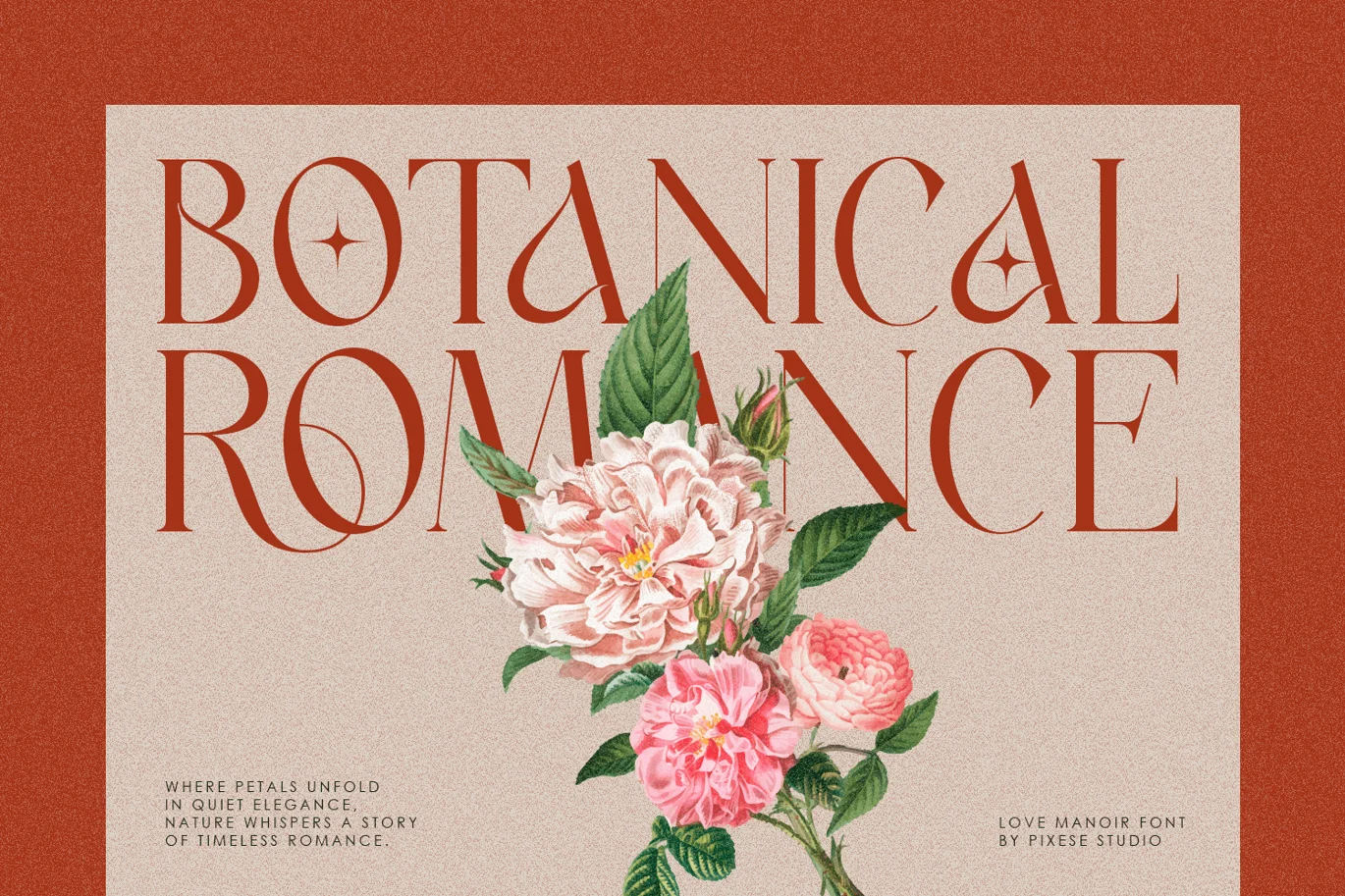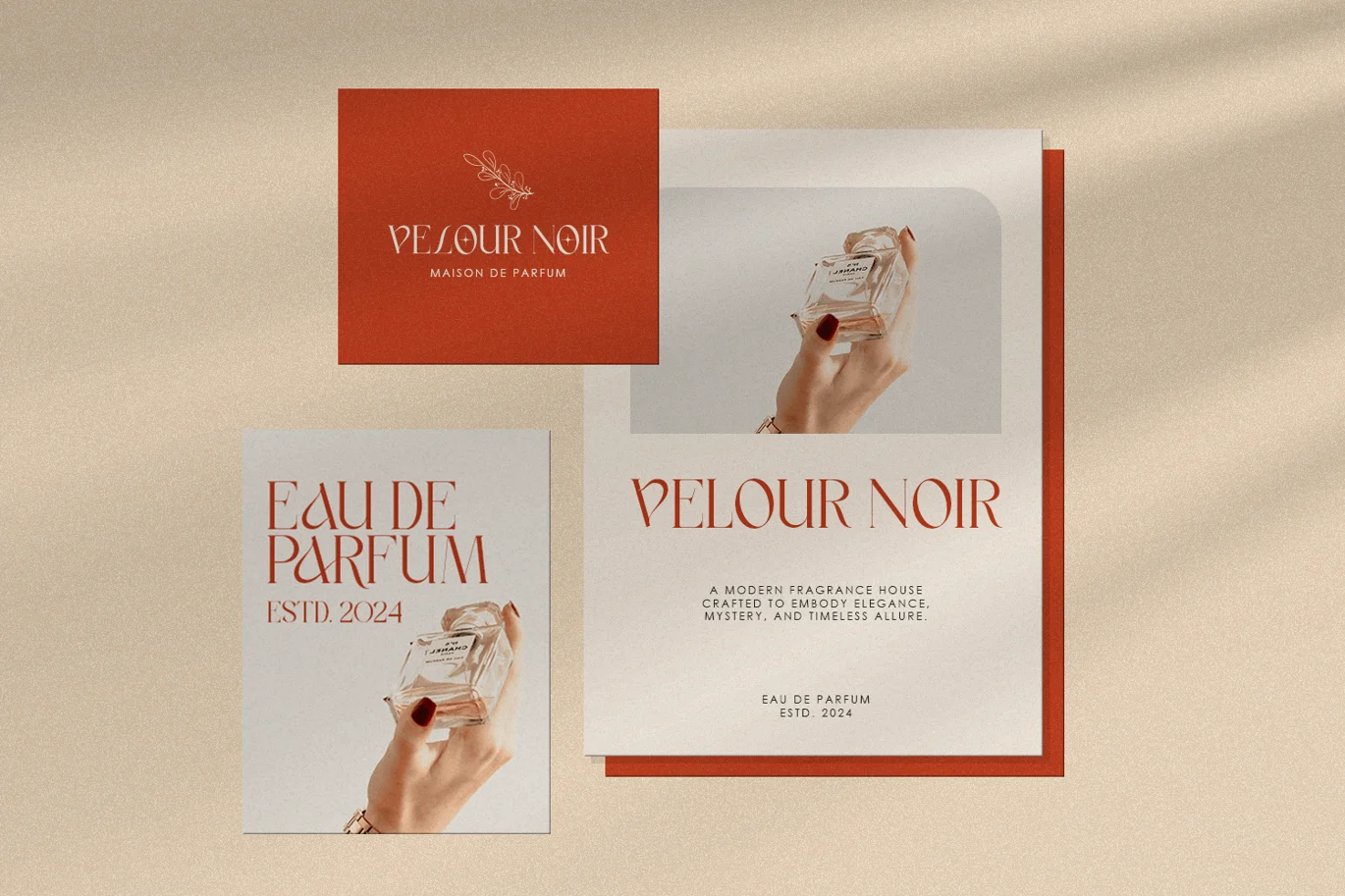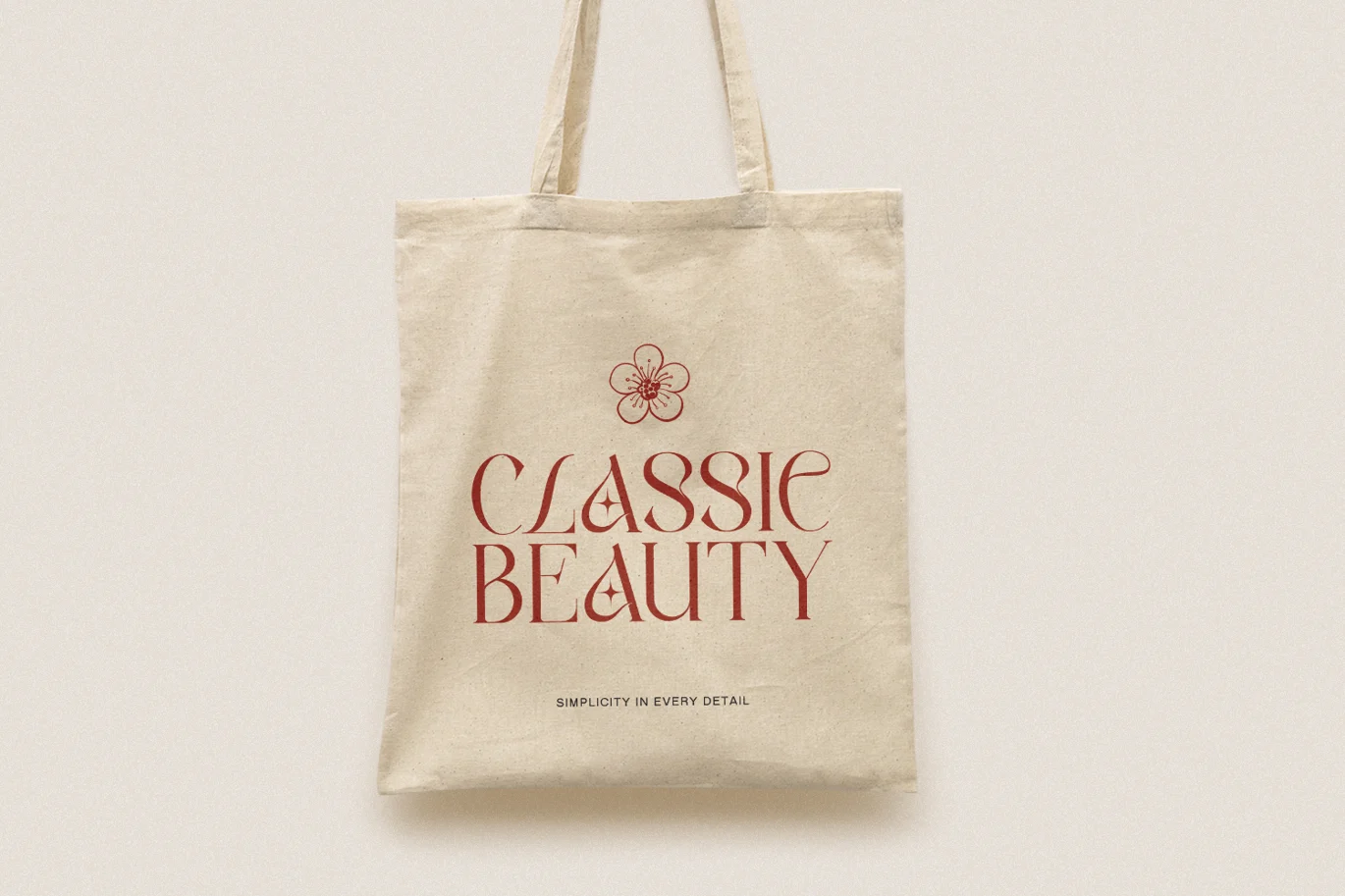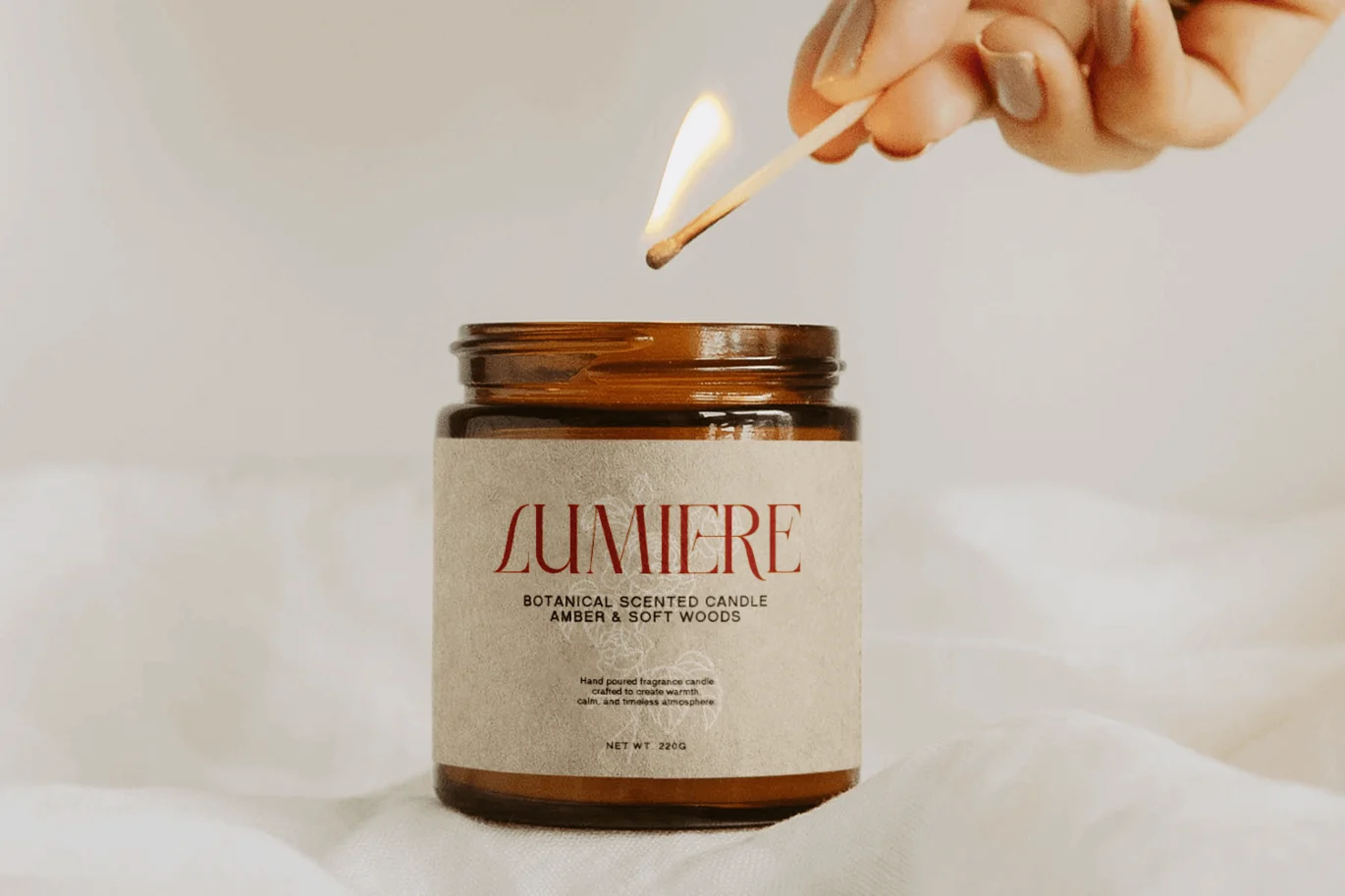
Love Manoir – Luxury Serif Font
Elevate Your Branding with Love Manoir
Love Manoir is a sophisticated and modern luxury stylish serif font designed to add a touch of class to any creative project. Featuring unique ligatures and elegant curves, this typeface is perfectly suited for premium branding, high-end fashion editorials, and luxury wedding invitations.
Whether you are designing a logo for a boutique or a layout for a premium magazine, Love Manoir provides the versatility and aesthetic appeal required to make your work stand out. Its clean lines and decorative alternates offer a professional yet artistic flair.
FEATURES
- Stylistic Alternates
- Uppercase and Lowercase letters
- Numbering and Punctuations